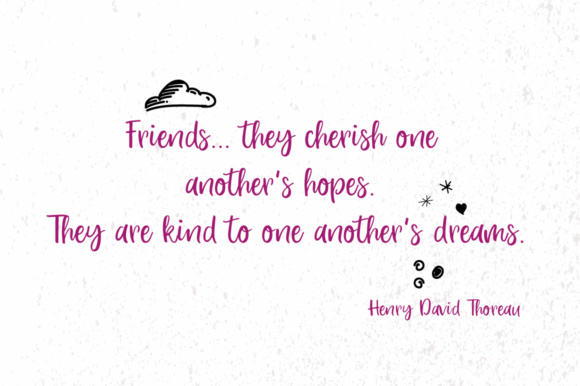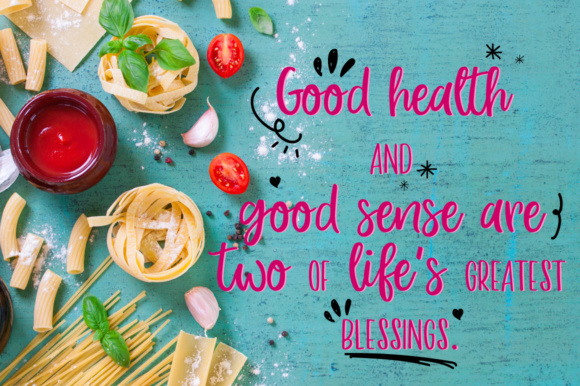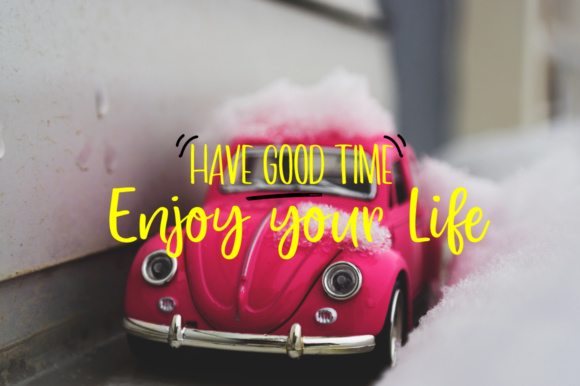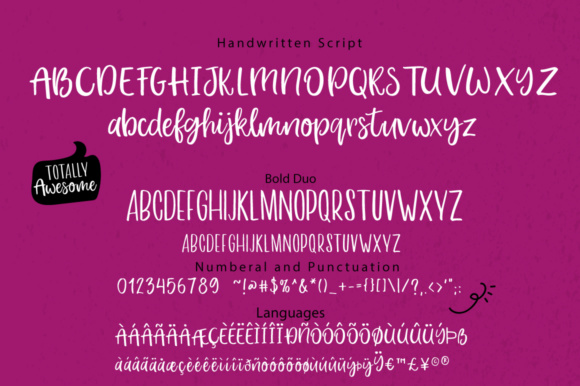
I still remember the frustration of working on a project, hours spent crafting the perfect design, only to realize that the font I chose just wasn’t cutting it. The client had specific requests, and I needed to deliver. That’s when I stumbled upon Enmity!, a striking, handwritten script font that quickly became my go-to. In this article, I’ll share my experience with Enmity!, its features, and how to make the most of it in your designs.
First Impressions: What I Love About Enmity!
Enmity! is more than just a font – it’s a statement piece. Here are a few things that I absolutely love about it:
- ✨ Unique Style: Enmity! comes in two beautiful styles, making it versatile for various projects.
- ✅ Highly Readable: Despite its decorative nature, Enmity! remains readable, even in smaller sizes.
- 💥 Expressive: The font has a lot of personality, perfect for designs that need a bit of flair.
The Not-So-Perfect: A Few Quirks
No font is perfect, and Enmity! is no exception. Here are a few things to keep in mind:
- ⚠️ Enmity! Bold Limitation: It’s essential to note that Enmity! Bold has uppercase letters only. This might limit its use in certain projects requiring lowercase text.
- 🤔 Glyphs and Alternates: While Enmity! offers some fantastic OpenType features, navigating the glyphs and stylistic alternates can be a bit tricky for beginners.
The Story Behind Enmity!
While the origins of Enmity! might not be well-documented, it’s clear that the designer aimed to create a font that stands out. The unique blend of elegance and playfulness suggests a designer who wanted to push the boundaries of traditional script fonts. Whether or not the designer succeeded in their mission, Enmity! certainly brings a fresh perspective to the world of typography.
| Is Enmity! suitable for body text? | While Enmity! is highly readable, its decorative nature makes it more suited for headings and titles. For body text, consider a more traditional font. |
| What if I need both uppercase and lowercase letters? | If your project requires both, consider using the regular style of Enmity!, which likely includes both uppercase and lowercase letters. |
Enmity! is a striking addition to any designer’s font library. Its unique styles and expressive nature make it perfect for a wide range of projects. With a bit of practice and experimentation, you can unlock its full potential and add a touch of elegance and whimsy to your designs.